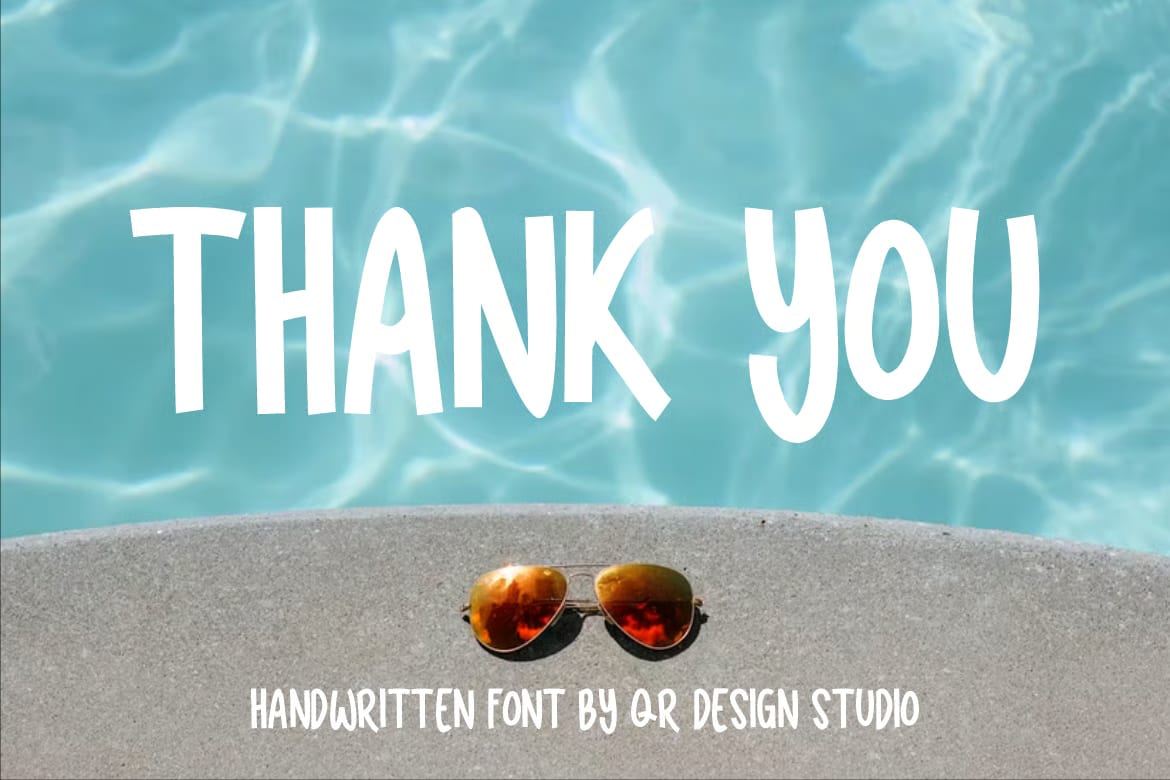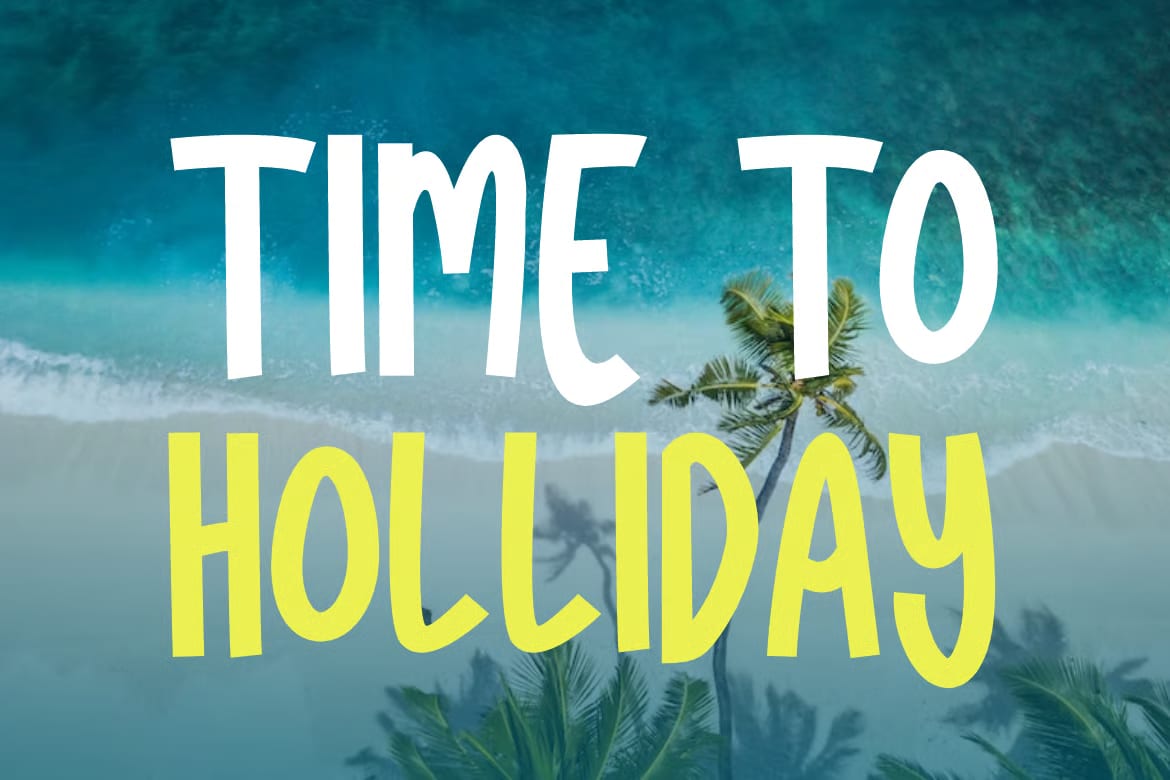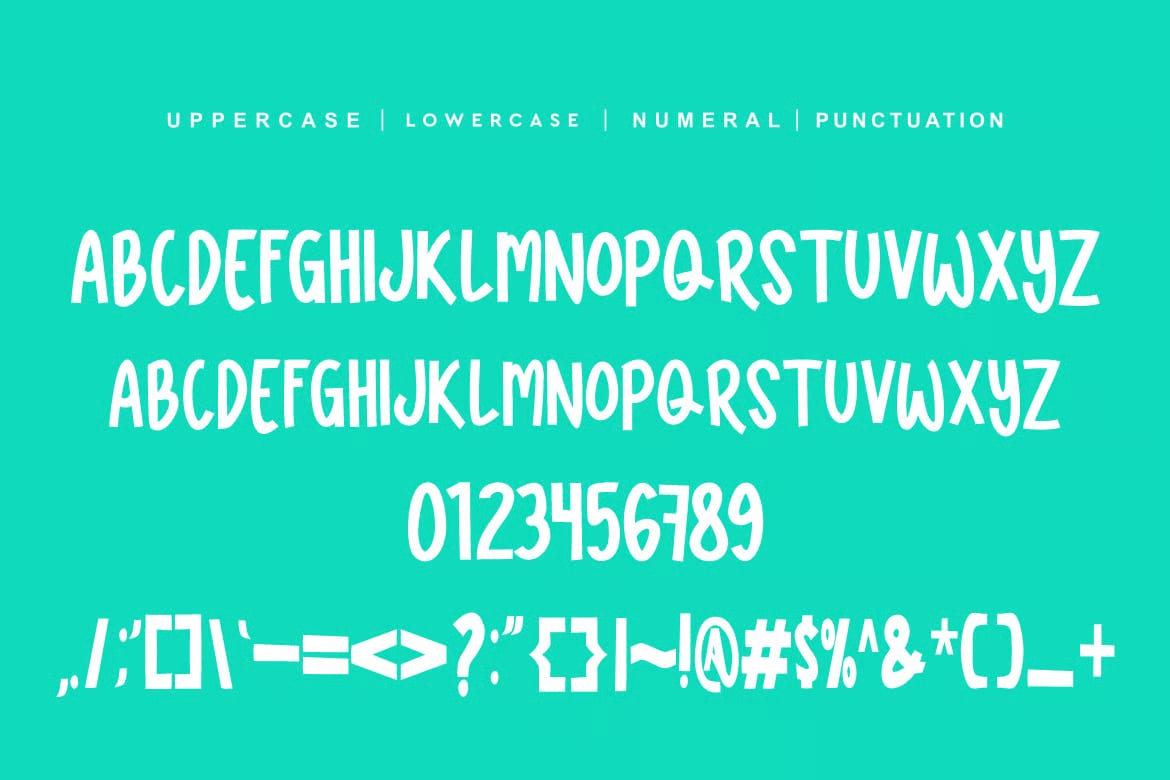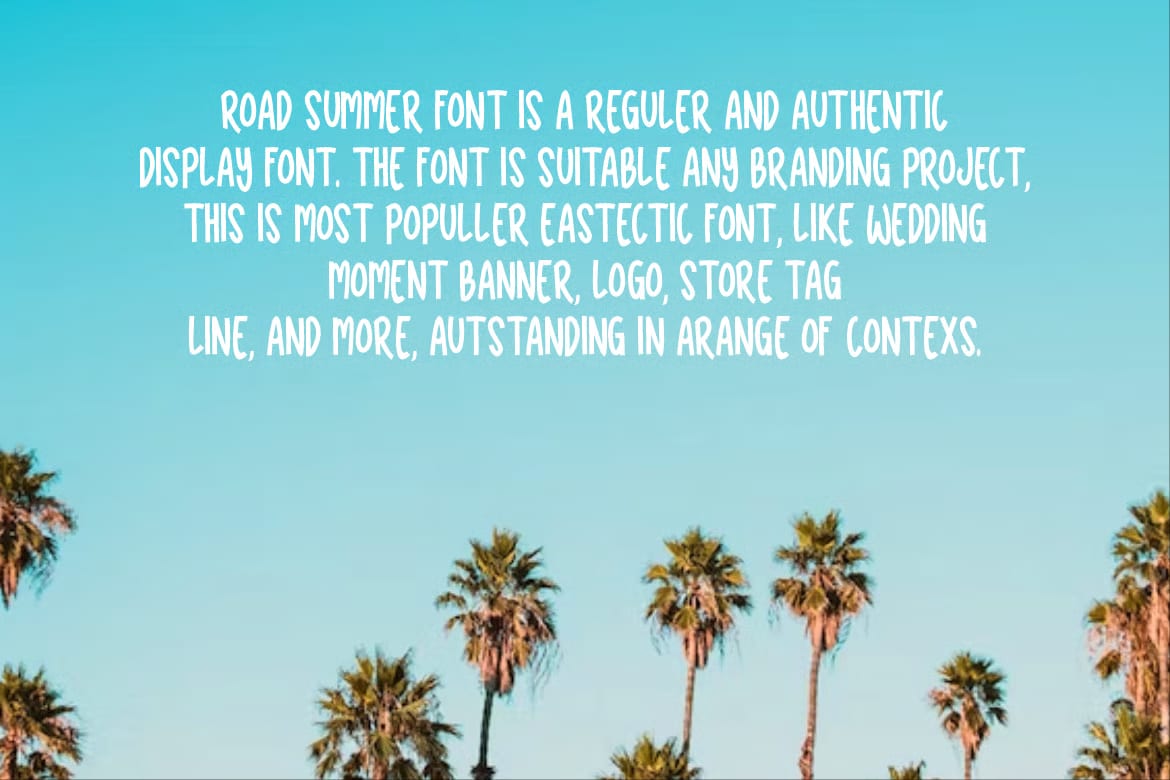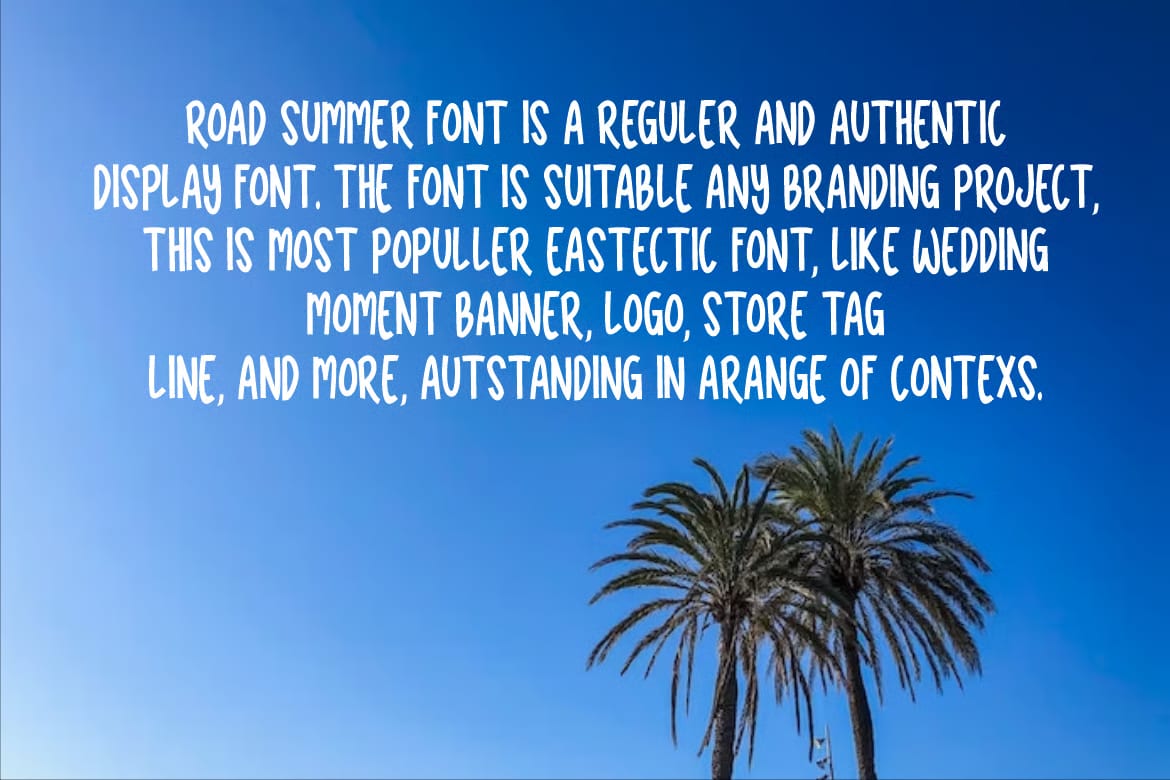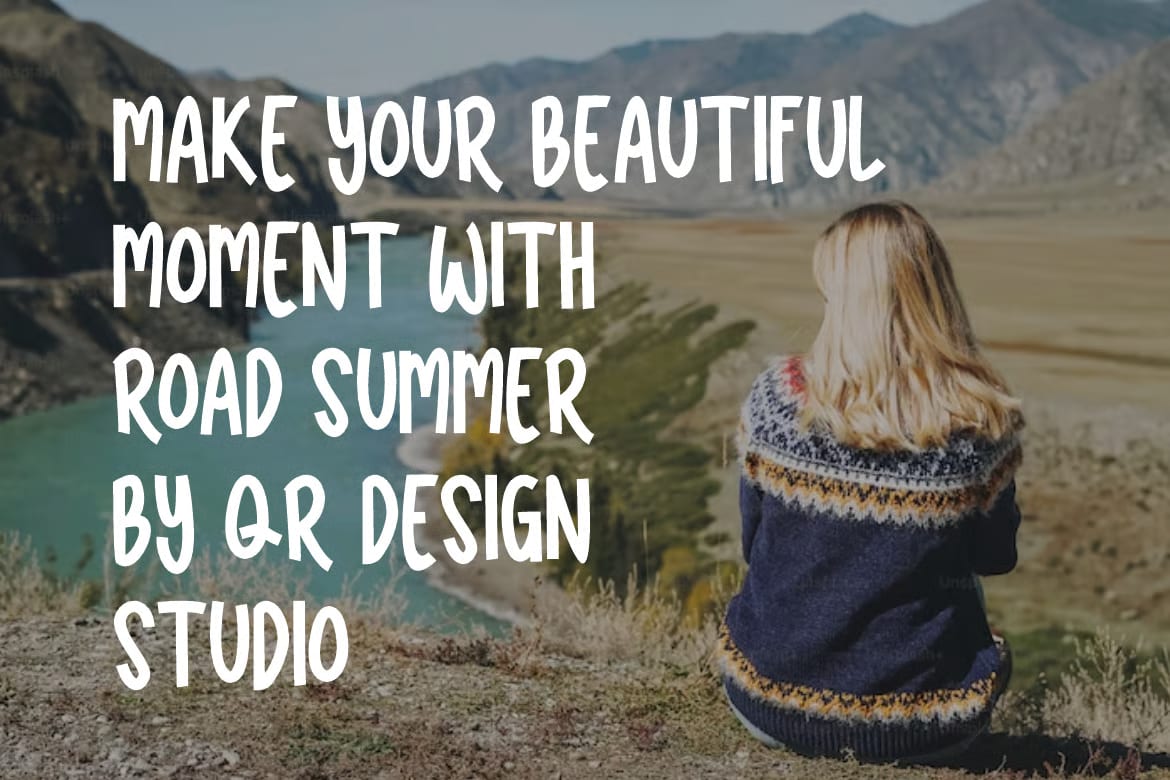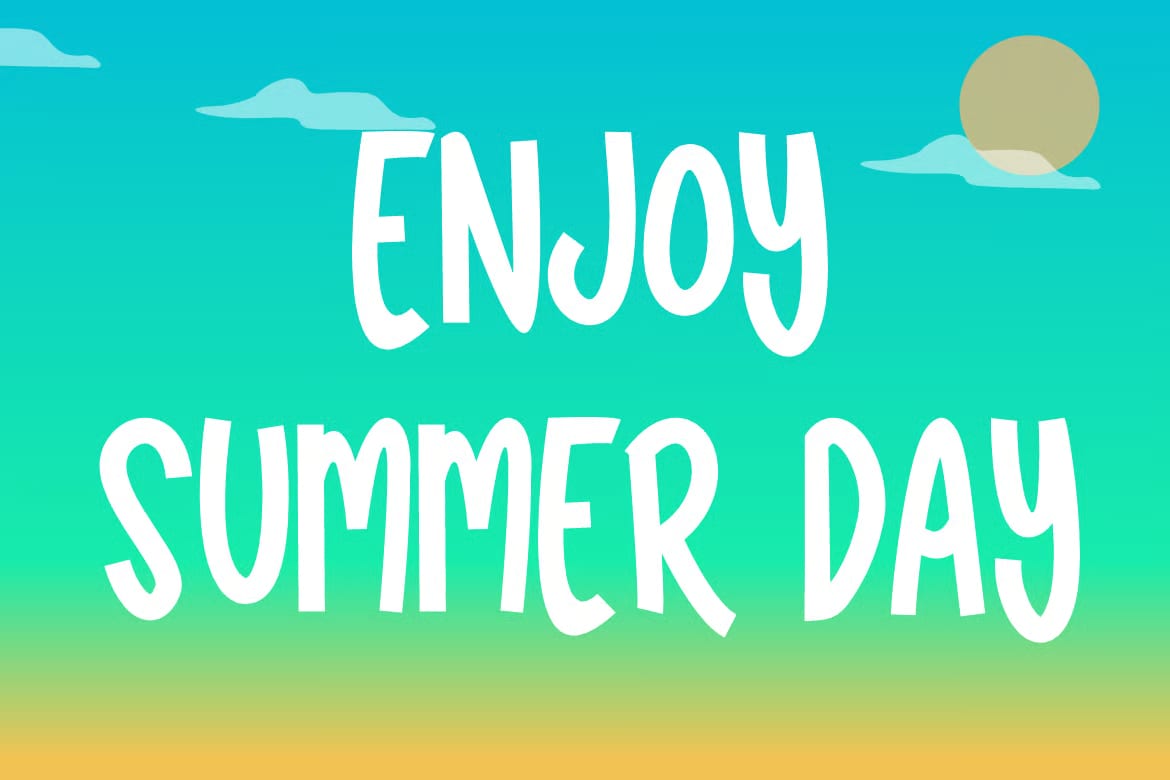
This font has a bold, authentic display style that gives text a strong and noticeable look. It feels playful but still clean, which makes it a good fit for designs that need a bit of personality without becoming hard to read.
It works well for branding projects such as logos, but it can also be used in summer-themed designs, greeting cards, and other creative layouts. The overall style makes it a flexible choice for projects that want a fun and eye-catching feel.
Because of its display look, this font is especially useful when you want the lettering to stand out as part of the design. It can fit a wide range of casual and themed visuals, from modern promotional graphics to more cheerful holiday-inspired pieces.